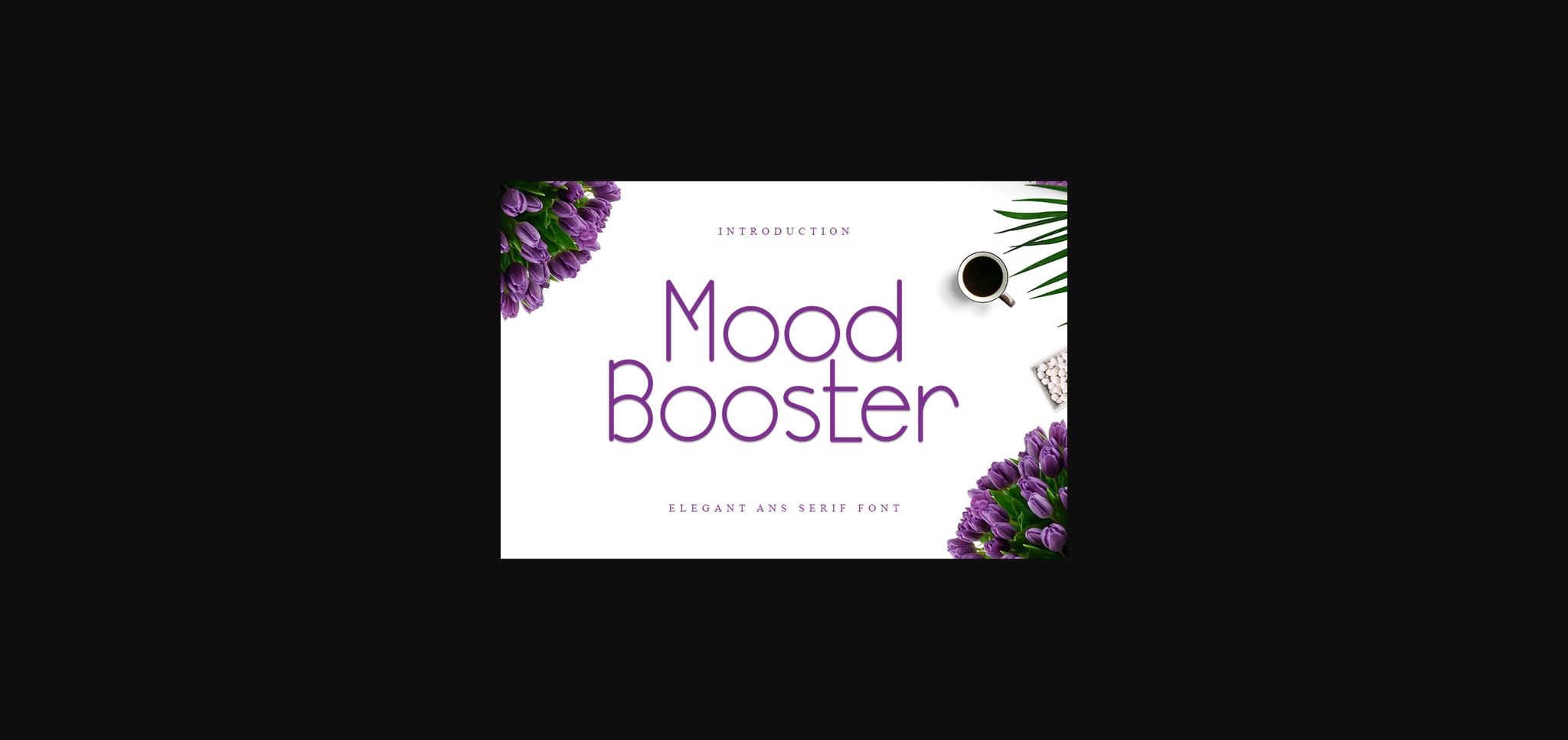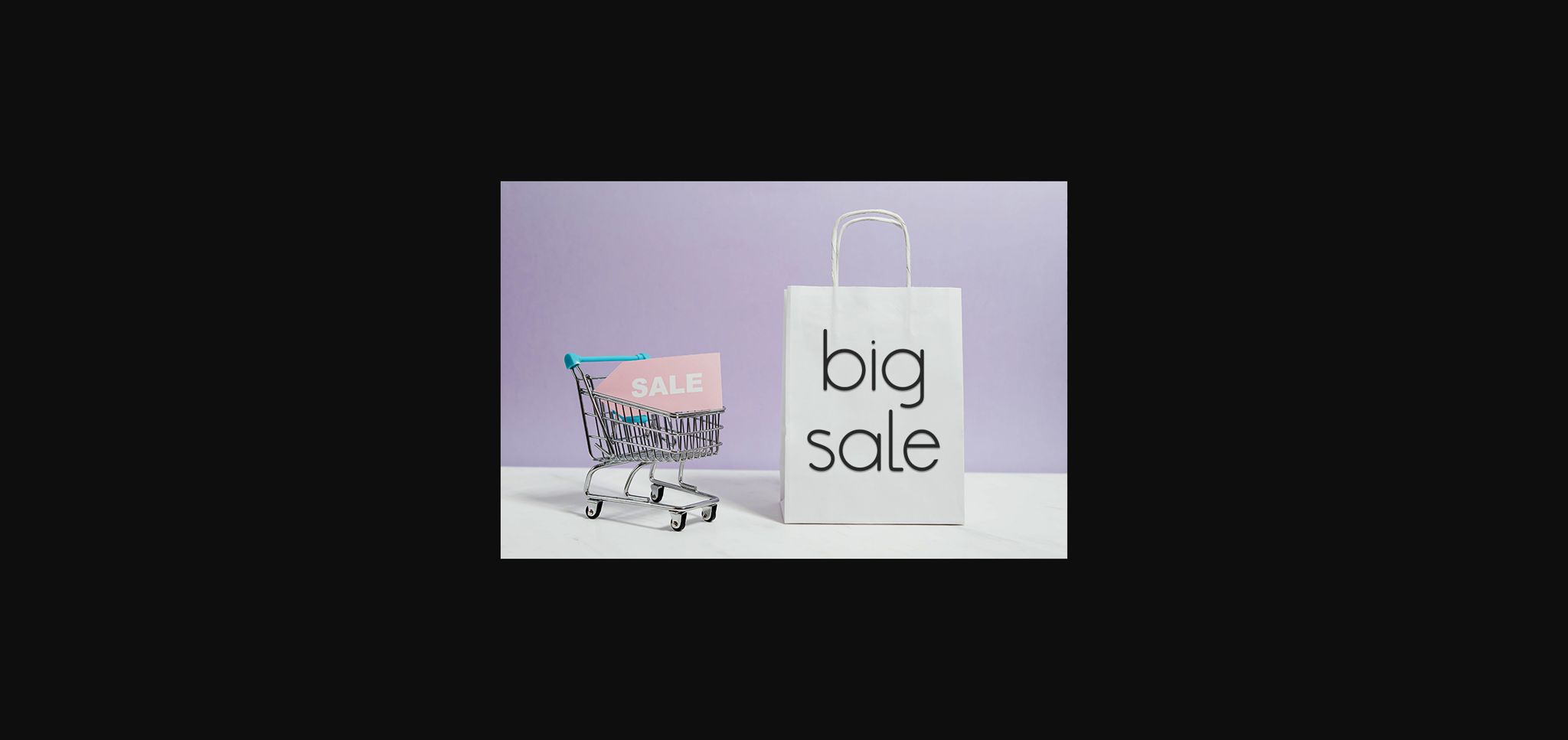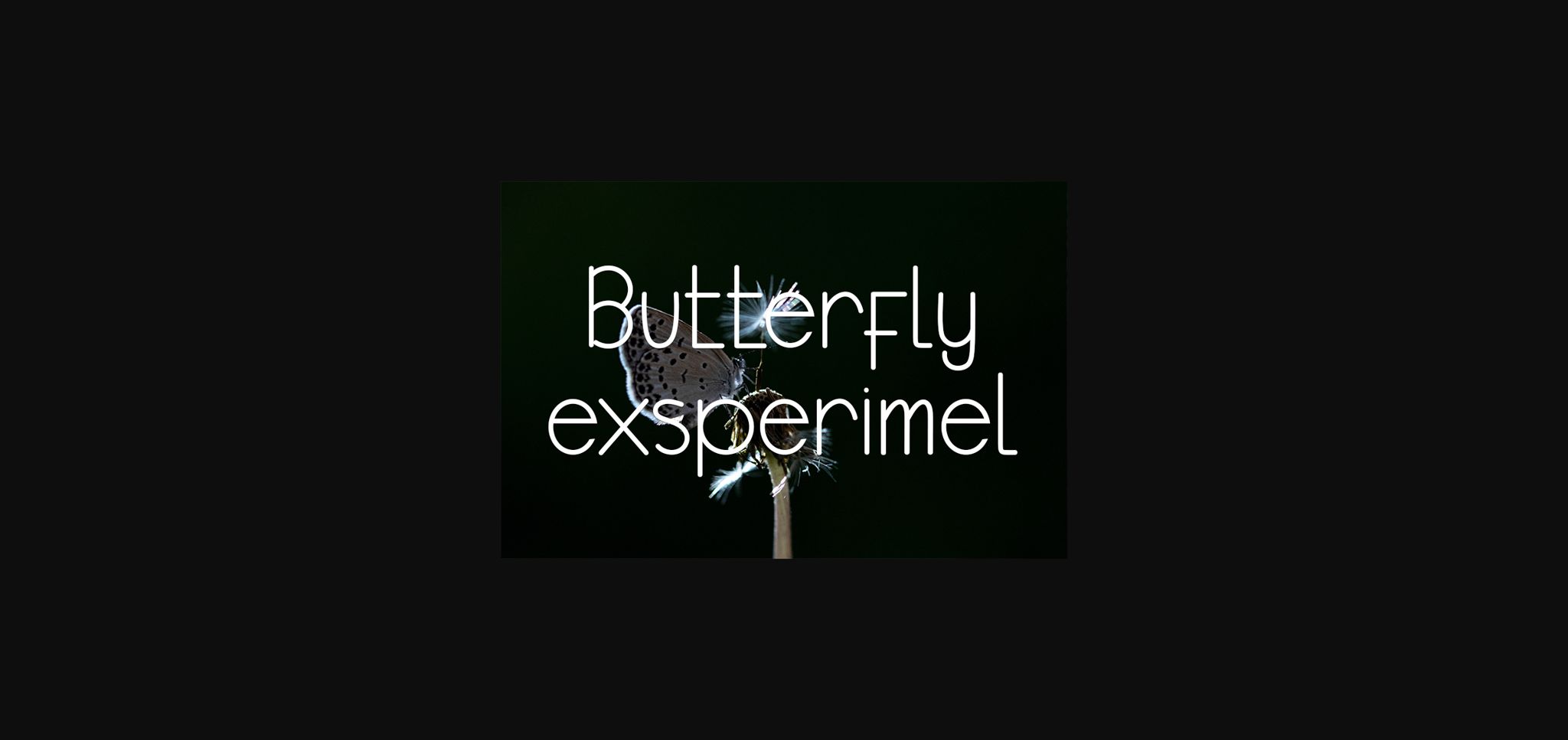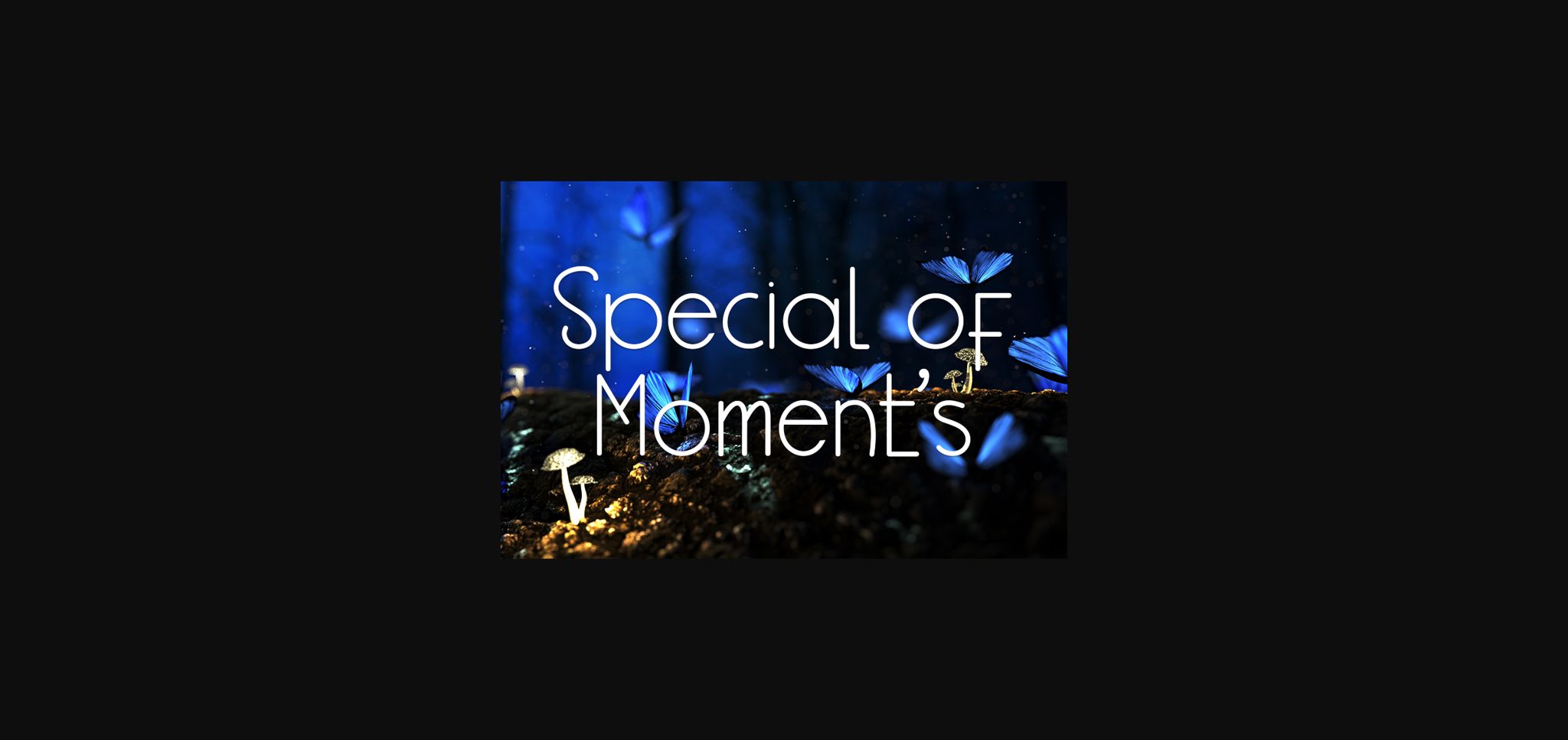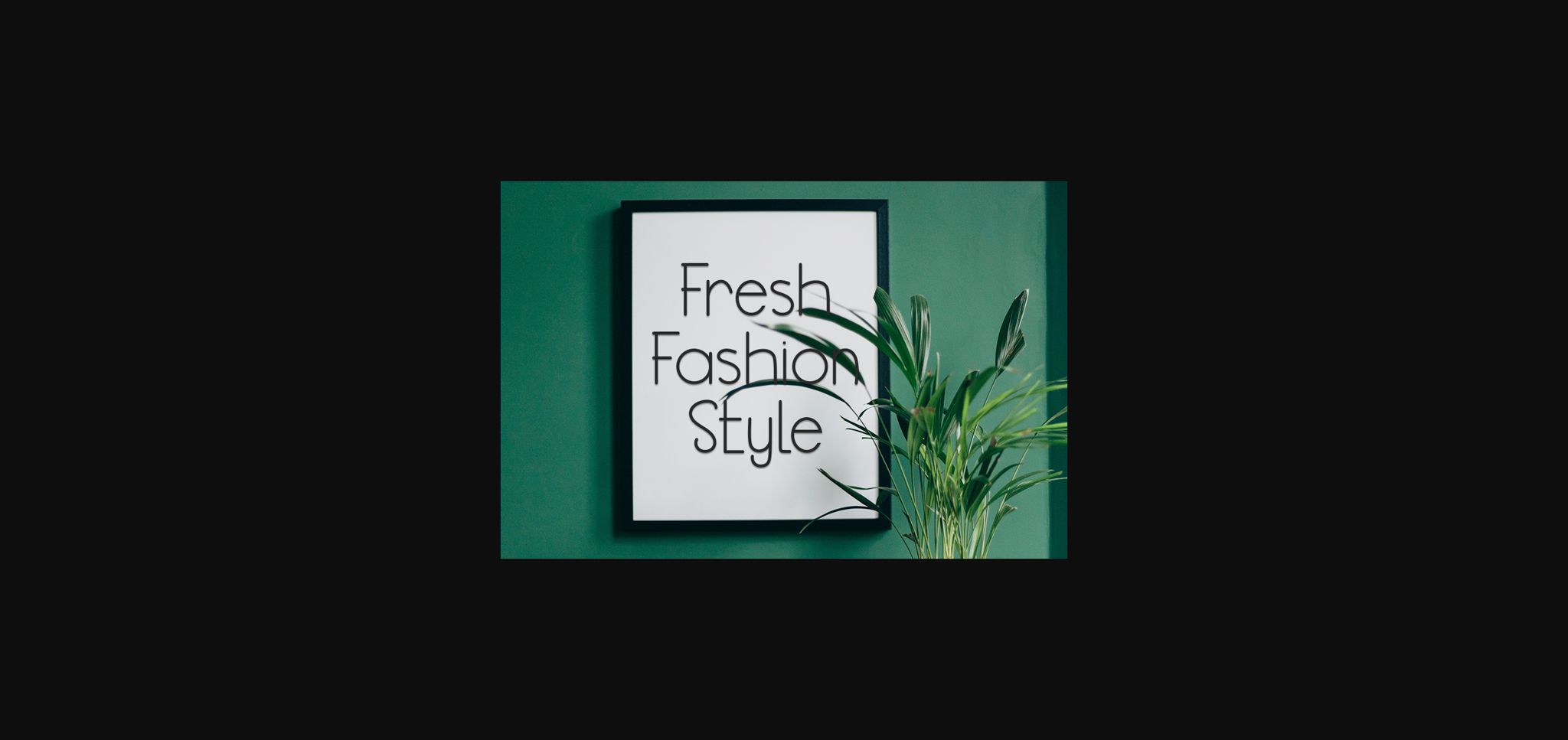
HomeSans Serif FontsMood Booster Font Sans Serif Fonts Mood Booster Font FacebookXPinterestWhatsApp 1 of 7 ... Mood Booster Font Poster 2... Mood Booster Font Poster 3... Mood Booster Font Poster 4... Mood Booster Font Poster 5... Mood Booster Font Poster 6... Mood Booster Font Poster 7... About Mood Booster Font Mood Booster is a cool, trendy and neat sans serif font. Simple but with a strong visual effect, this font will instantly make your creation more appealing than any others. DOWNLOAD NOW People also explored Lemon Tea Font Rillies Font Slim Summer Font Flower Spring Font Stay Standing Font Hearth Hisk Font Christsmas Bright Font Lucky Sunshine Font Welldone 318 0 TagsMood Booster Font Previous articleFanatrike FontNext articleAlmost Done Font LEAVE A REPLY Cancel reply Comment: Please enter your comment! Name:* Please enter your name here Email:* You have entered an incorrect email address! Please enter your email address here Website: Save my name, email, and website in this browser for the next time I comment. Personal Use Free Ashay Personal Use Free Read more about this font Americana Personal Use Free Read more about this font Rhetorical Personal Use Free Read more about this font Eva Personal Use Free Read more about this font BLOG Free vs Paid Fonts: Why Investing in Premium Fonts Is Worth It Free vs Paid Fonts: Why Premium Fonts Are Worth It in 2025 The debate of free vs paid fonts continues in the design world. While... Using Fonts in Digital Marketing: Tips to Strengthen Your Brand Identity How to Install and Use Fonts on Windows, macOS, and Web Projects Top 7 Google Fonts Alternatives for Faster and Privacy-Friendly Web Design (2025)